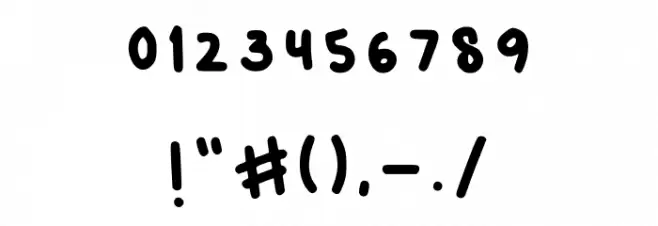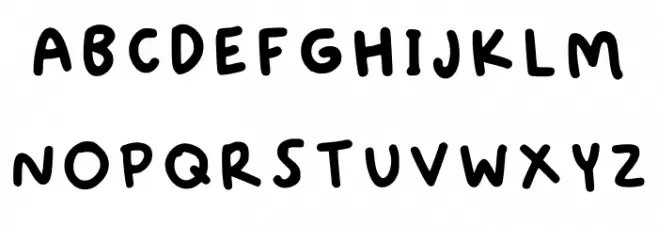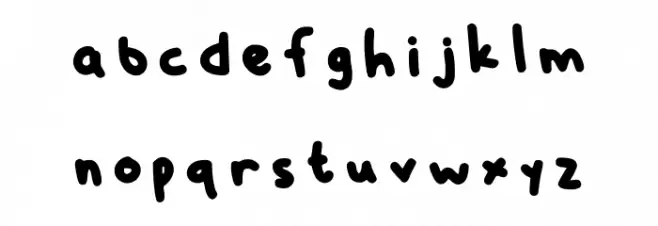
Littlejoodles Regular Font
Littlejoodles Regular Description
A playful, rounded, handwritten style font with a casual and friendly appearance.
| Overall Style | Casual, Playful, Friendly |
| Use Case | Headlines, Body text, Logos, Invitations |